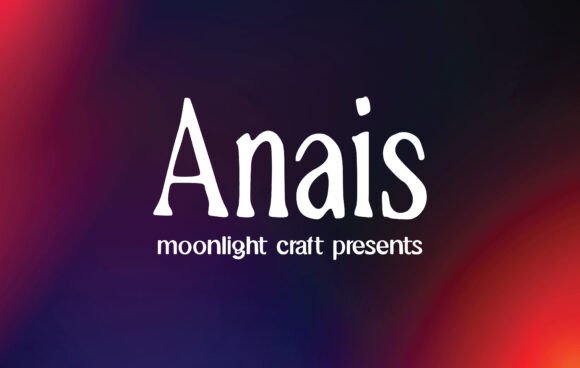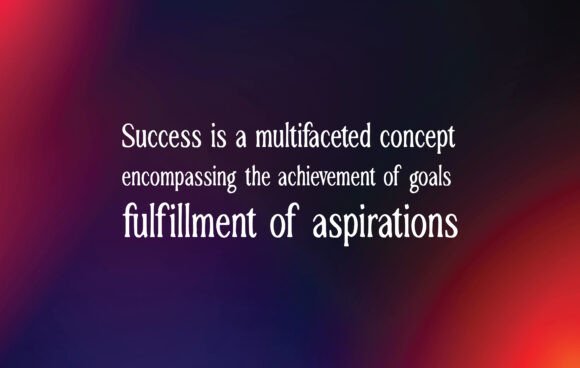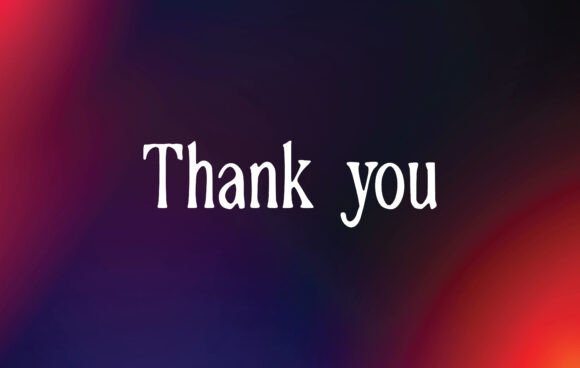
Anais Font: Elegant Handwritten Script for Branding & Logo Design
About the Anais Font
Experience the unique personality of Anais Font, a font designed for impact. Anais is a lovely and beautiful handwritten font.This font has the potential to take your creative ideas to the highest level.It is the best choice for creating eye catching logos, branding and quotes.
Anais excels in branding projects requiring a touch of elegance and personality, particularly logos, short headlines, and social media graphics. Its fluid forms also make it suitable for invitations and short quotes where a handwritten feel is desired. However, its delicate strokes and varying letterforms make it unsuitable for body text or lengthy paragraphs; readability suffers at smaller sizes.
Pairing Anais with a clean sans-serif like Montserrat or a geometric sans-serif like Futura provides excellent contrast and visual balance, grounding its whimsical nature. For a more sophisticated pairing, consider a classic serif like Garamond or a slightly more modern serif such as Lora. These pairings allow Anais to shine as a statement element without overwhelming the overall design.
Anais projects a feeling of refined playfulness; it’s charming yet sophisticated. Brands targeting a younger, creative demographic, such as boutiques, cafes, or artisan businesses, would find it a perfect fit. Its personality is best suited to projects aiming for a friendly, approachable aesthetic.
Anais Font Usage Examples
Anais Font Example